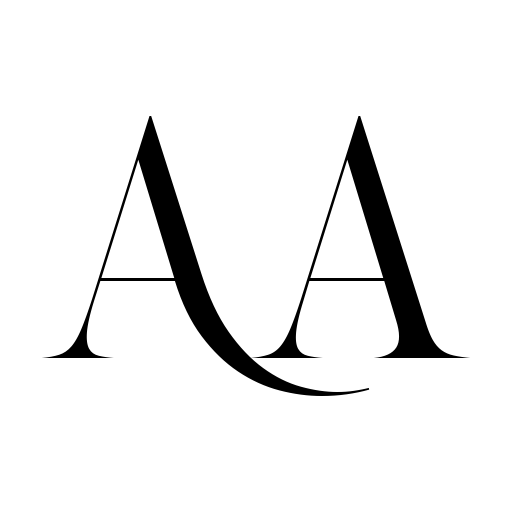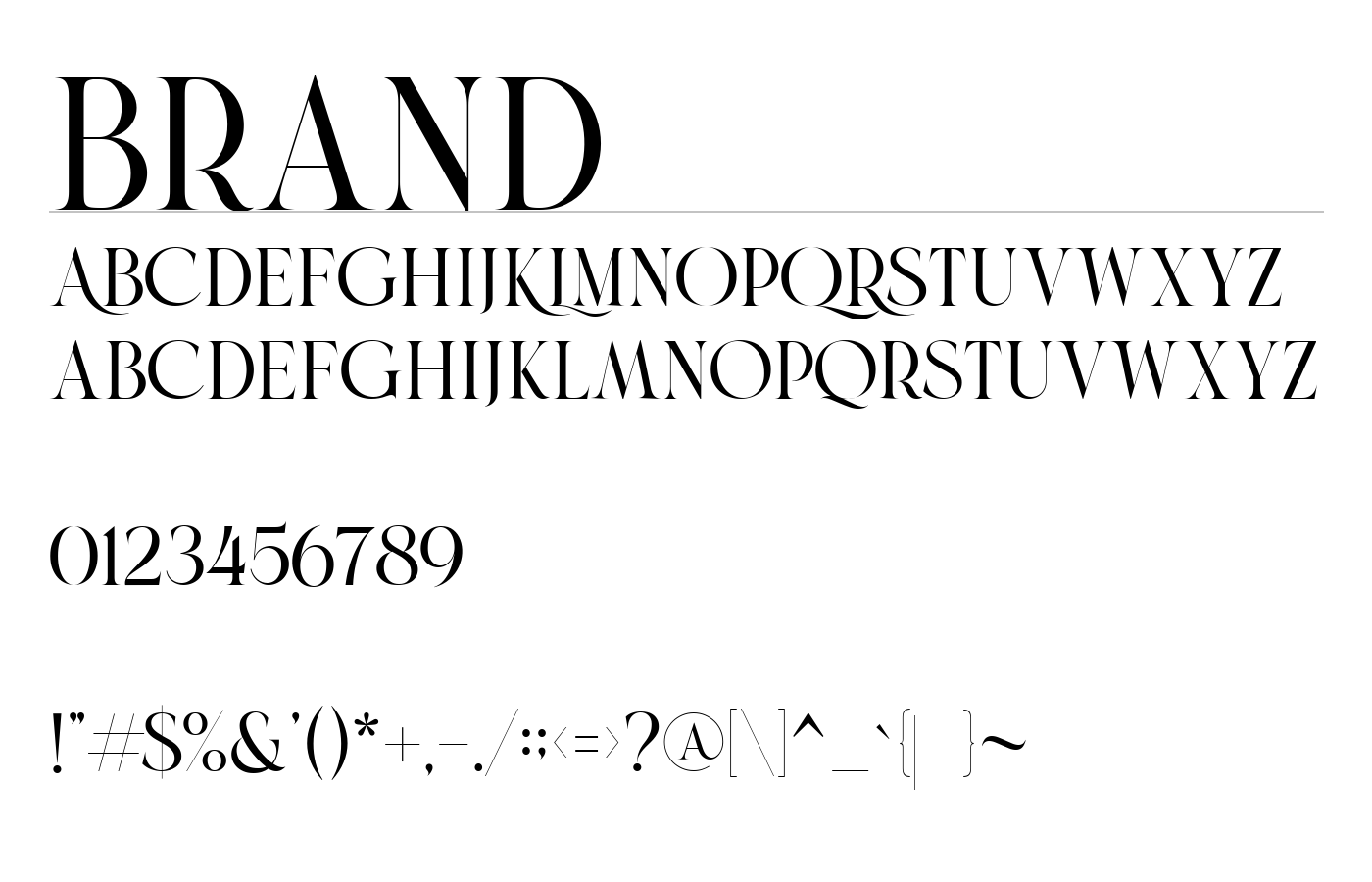
Brand Font is an elegant serif typeface with high contrast between thick and thin strokes, featuring refined, sharp serifs and delicate, stylish curves. Its tall, narrow letterforms and unique details like the flowing Q tail and single-story italic letters give it a luxurious, sophisticated character ideal for high-end branding, editorial headlines, and fashion-focused designs. This font works beautifully where a classy, modern, and graceful impression is desired.
Brand Font
| Designer | Zamroni Hamzah |